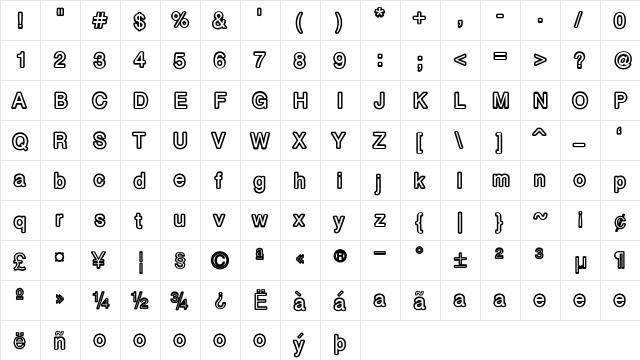
carbono Regular
Design Context for carbono Typeface
carbono offers clean, dependable letterforms without strong stylistic allegiance, making it a practical choice for designers who need flexibility.